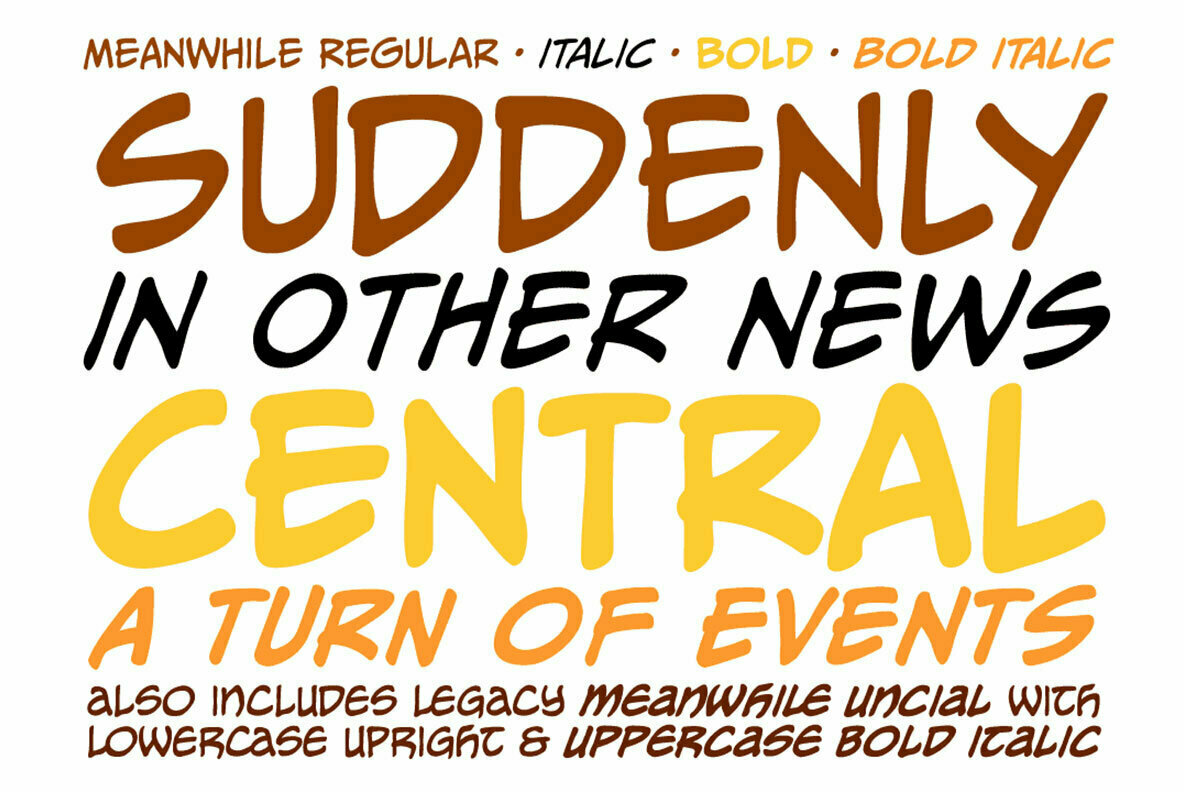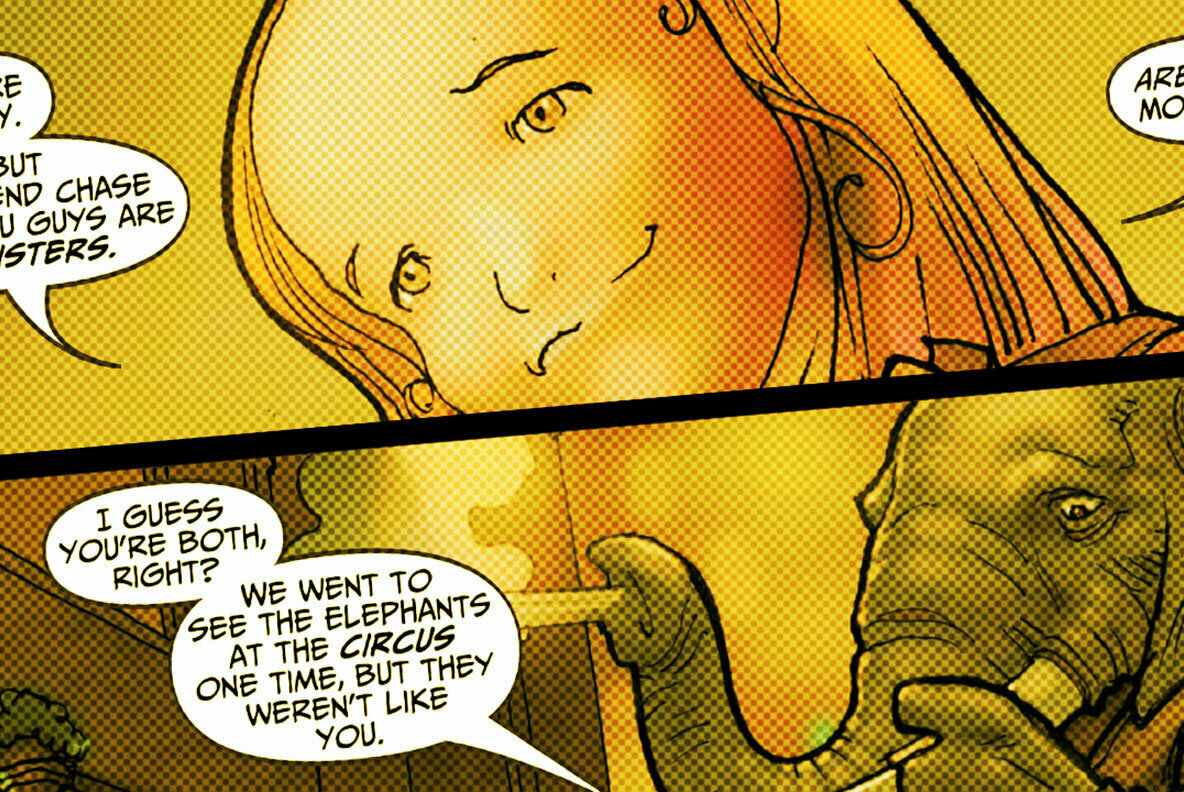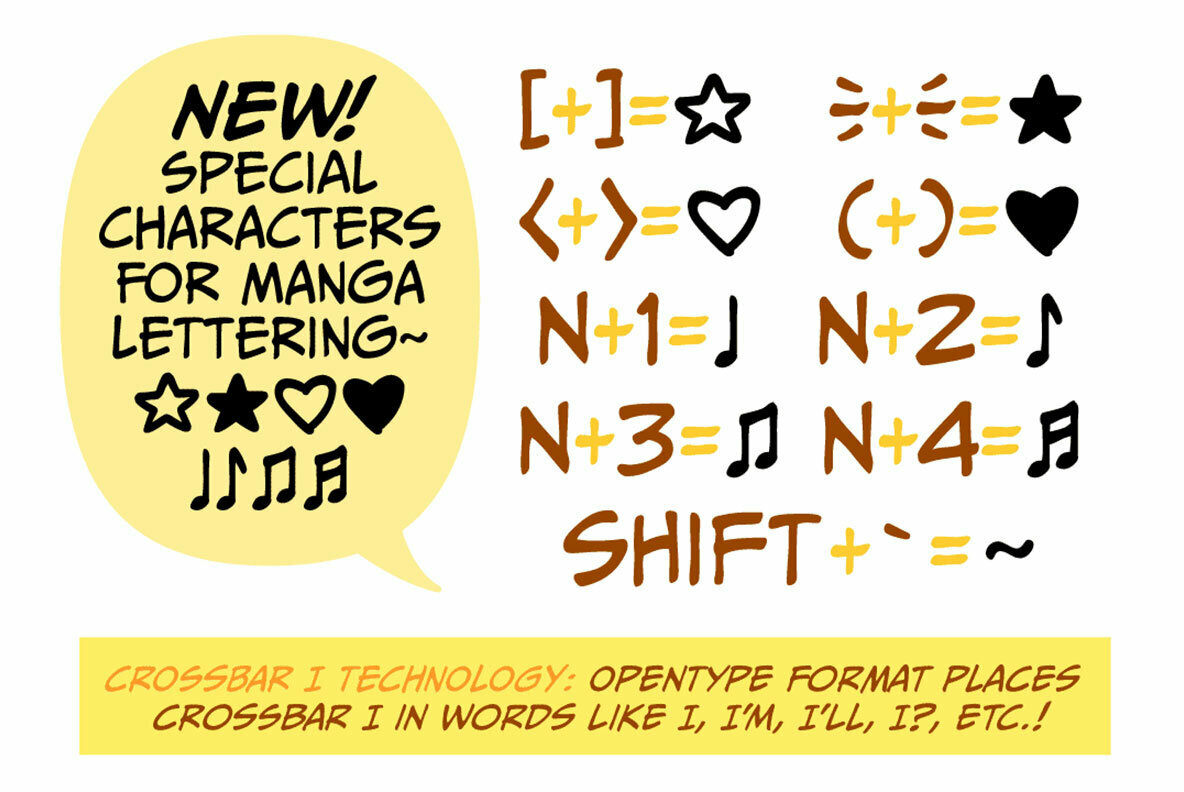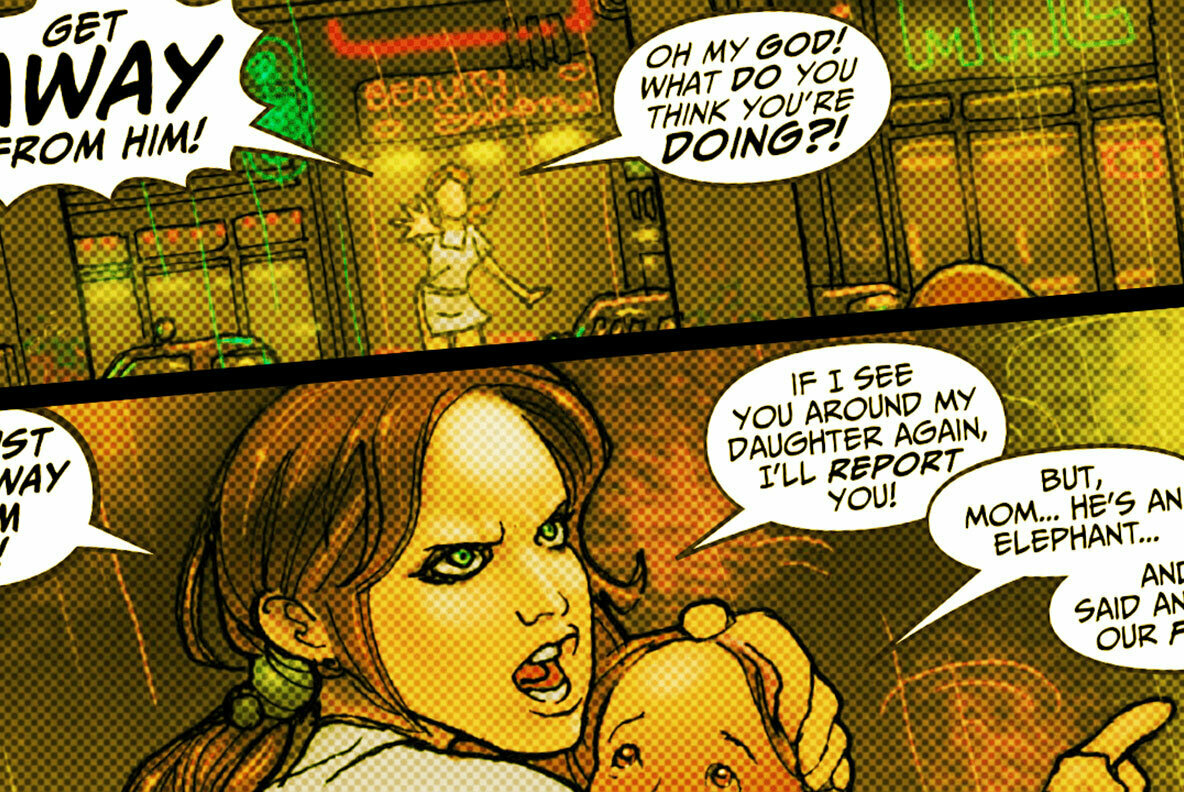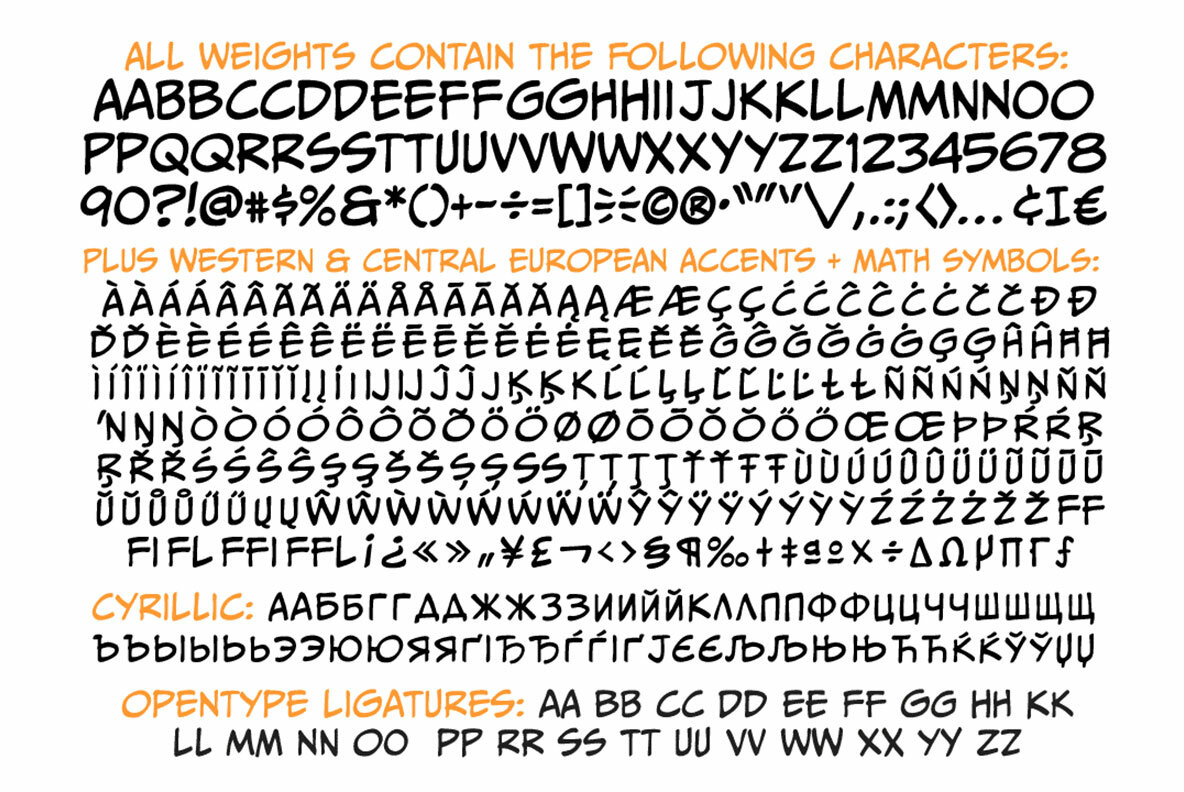
Meanwhile Font
Suddenly --’ just isn’t ’Soon...’ enough for some people, and ’Later...’ isn’t quite ’The Next Day...’ ’Meanwhile...’ lies inbetween ’Seconds pass...’ and ’That Night...’ and was designed by Comicraft’s John ’With Just a few minutes to Go...’ Roshell in order to tell the tales of Marvel’s AVENGERS and FANTASTIC FOUR. ’And now, back to the action...’
Meanwhile features four weights (Regular, Italic, Bold & Bold Italic) with alternate uppercase characters, Western & Central European accents, Cyrillic characters, hearts stars & notes for Manga lettering, and Comicraft's patented Crossbar I Technology™ to place that elusive character in only the right locations.